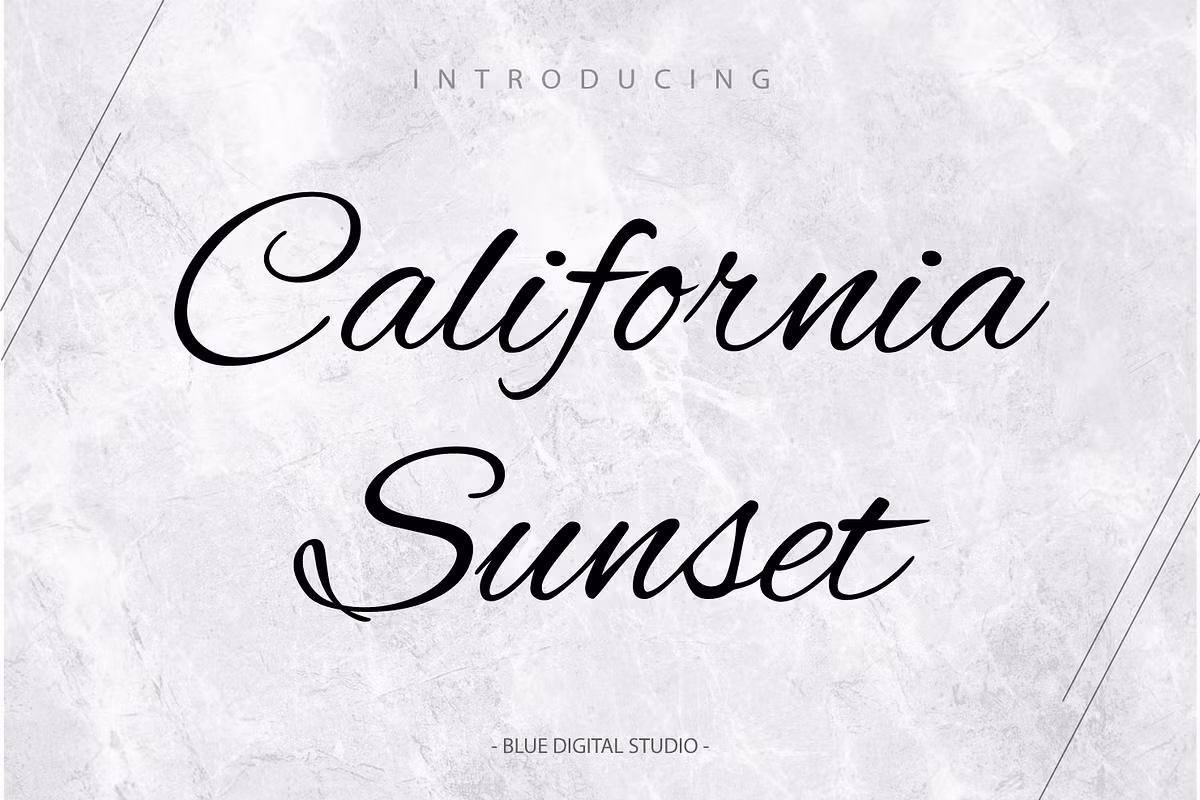
California Sunset Font | Script Font Free Download is a laid-back and stylish handwritten script inspired by warm evenings, ocean breezes, and West Coast vibes. With its smooth curves and casual elegance, this font is perfect for beach-themed branding, summer invitations, travel blogs, fashion labels, and lifestyle content.
Its natural, flowing handwriting style brings a relaxed yet refined personality to your design—making it perfect for social media posts, logo design, and creative packaging. Whether you're designing surf gear or sunny quote graphics, California Sunset delivers a carefree, coastal charm.
Designers love California Sunset for its effortless beauty, versatility, and timeless appeal across digital and print projects. Want to bring warmth and personality to your next design? Download California Sunset Font | Script Font Free Download and let your typography glow like golden hour.